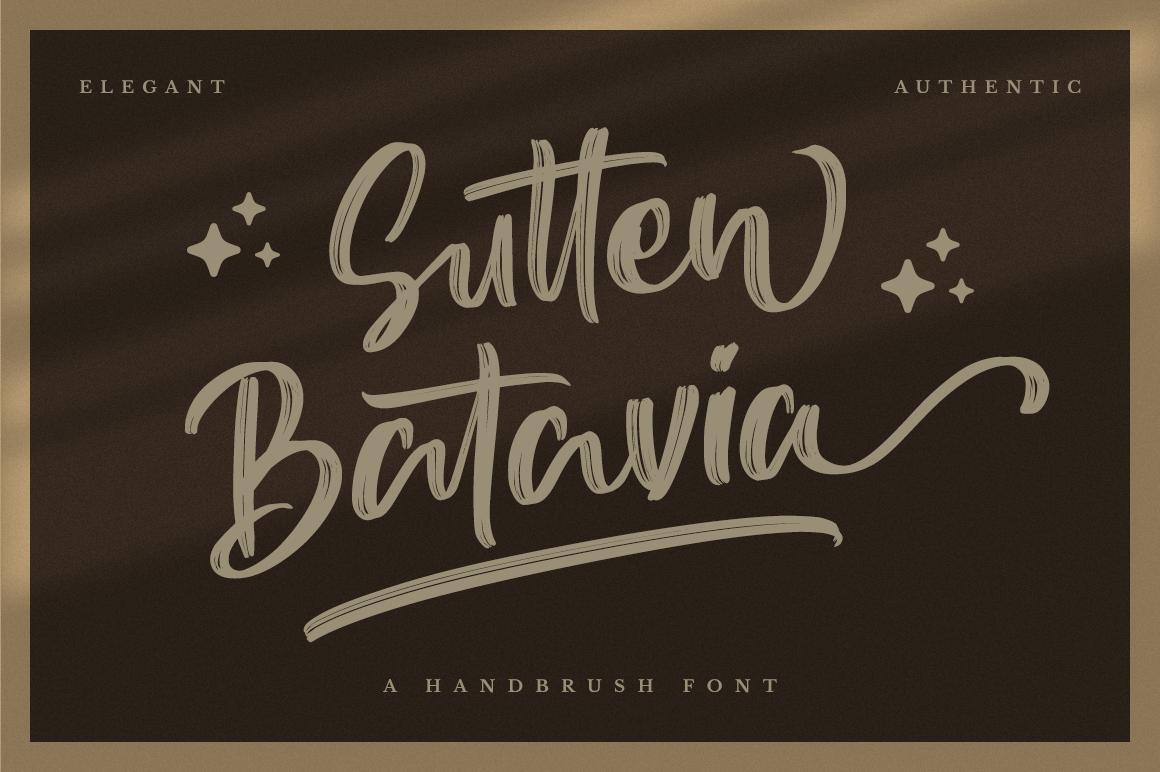
Sutten Batavia Font Description
Sutten Batavia is a beautiful, well balanced and vintage styled script font. It is defined by smooth curves and is perfect for fashion branding or editorial designs. Sutten Batavia is PUA encoded which means you can access all glyphs and swashes with ease!